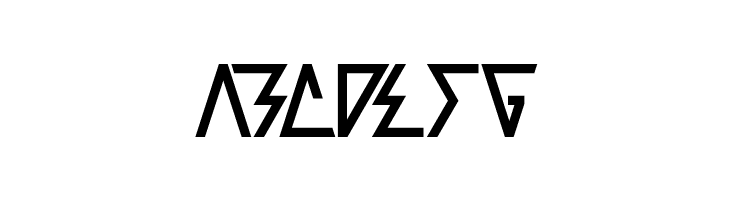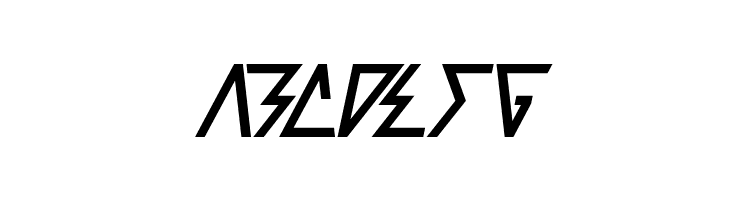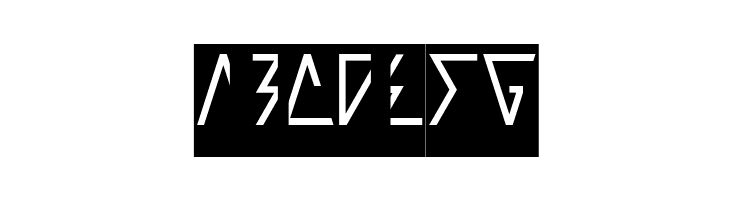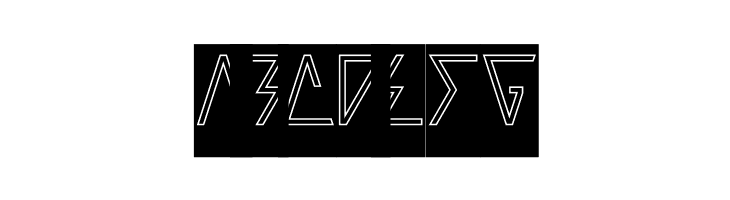
LAGGTASTIC Italic Font
A bold, angular font with a futuristic and edgy design.
LAGGTASTIC-Hollow Font
A geometric, hollow font with angular, futuristic designs.
LAGGTASTIC-Light Font
A geometric, angular font with a futuristic and edgy style.
LAGGTASTIC-Inverse Font
A geometric, angular font with a futuristic and bold design.
LAGGTASTIC Font
A bold, angular, and futuristic geometric font.
LAGGTASTIC-Hollow Font
A bold, geometric font with hollow interiors and sharp, angular lines.